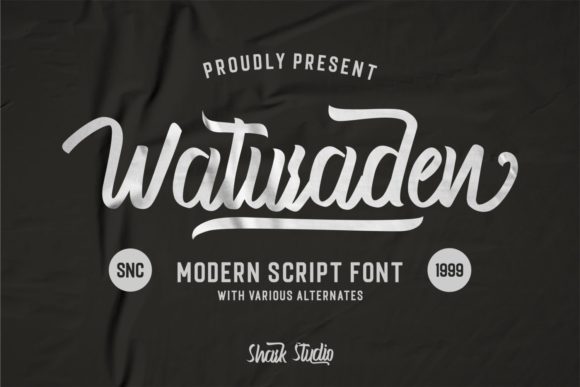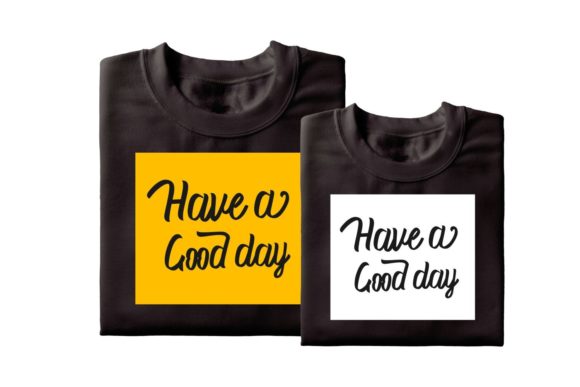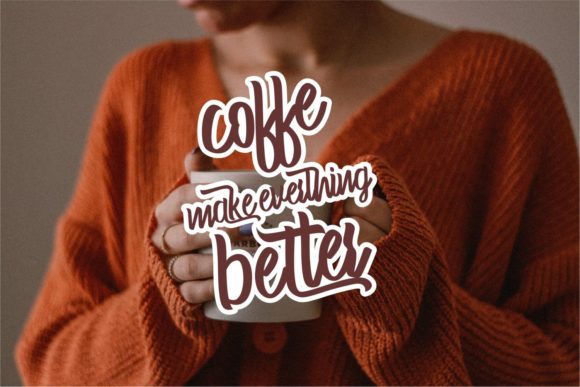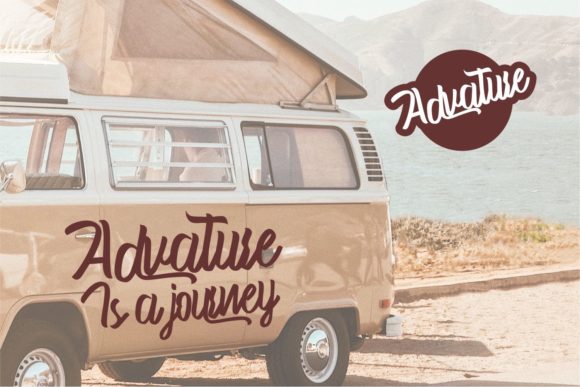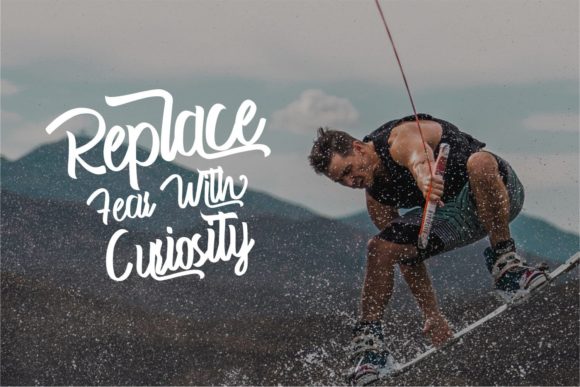
Waturaden is a vintage styled, cool and well balanced script font. Masterfully designed to become a true favorite, this font has the potential to bring each of your creative ideas to the highest level!